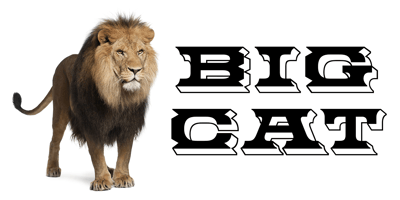
Big Cat Font is perfect for wildlife conservation campaigns, safari tourism branding, jungle adventure promotions, zoo exhibition materials, nature documentary titles, predator-themed gaming interfaces, powerful sports team logos, fierce brand identities, untamed product packaging, and dominant marketing communications.
Big Cat Font is exciting because it unleashes the primal power and majestic authority of apex predators with its boldly muscular letterforms that prowl across the page with the silent confidence of a hunting tiger and the commanding presence of a roaring lion. Its fiercely elegant character design reflects both the raw strength that dominates the wild and the graceful sophistication that defines nature's ultimate hunters, making it perfect for brands seeking to establish predatory market dominance.
Big Cat Font family includes light, regular, medium, bold, and black weights, each with corresponding italic versions. The font family also features wildlife ornaments, predator-inspired ligatures, jungle symbols, and fierce decorative elements that enhance its untamed aesthetic and versatility.
This powerfully wild typeface represents the perfect fusion of natural authority and sophisticated design. Big Cat Font Free Download enables designers to unleash its predatory potential before making a commercial commitment. The font's ability to convey both raw power and elegant sophistication makes it ideal for brands targeting adventure seekers, wildlife enthusiasts, and audiences demanding dominant market presence.
Whether you're developing wildlife organization identities, creating adventure tourism materials, or designing powerful brand communications, Big Cat Font brings an unmistakable sense of natural dominance and predatory excellence to every project. Its fierce character and wild heritage create powerful connections that resonate with audiences seeking strength, adventure, and untamed experiences.
The font's versatility excels in adventure and conservation environments where power and natural authority are paramount. Its predatory character makes it particularly effective for wildlife organizations, adventure tourism companies, outdoor equipment brands, and conservation groups seeking to establish commanding relationships with nature-loving and adventure-seeking audiences.
For designers working on projects requiring genuine wild power and predatory appeal, Big Cat Font offers an exceptional solution. Its fierce presence and comprehensive wildlife-themed elements provide the tools needed for creating truly dominant communications, while its majestic strength ensures your designs capture the untamed power and natural authority that defines apex predators and market-leading brand dominance.